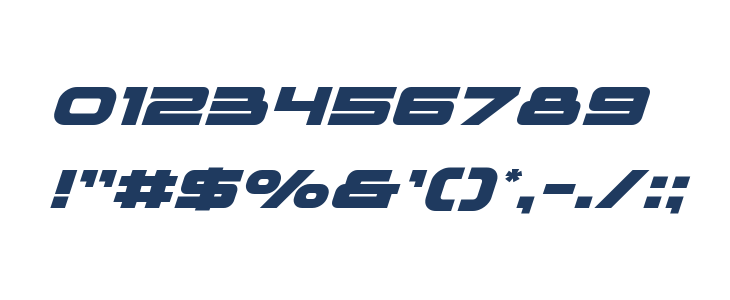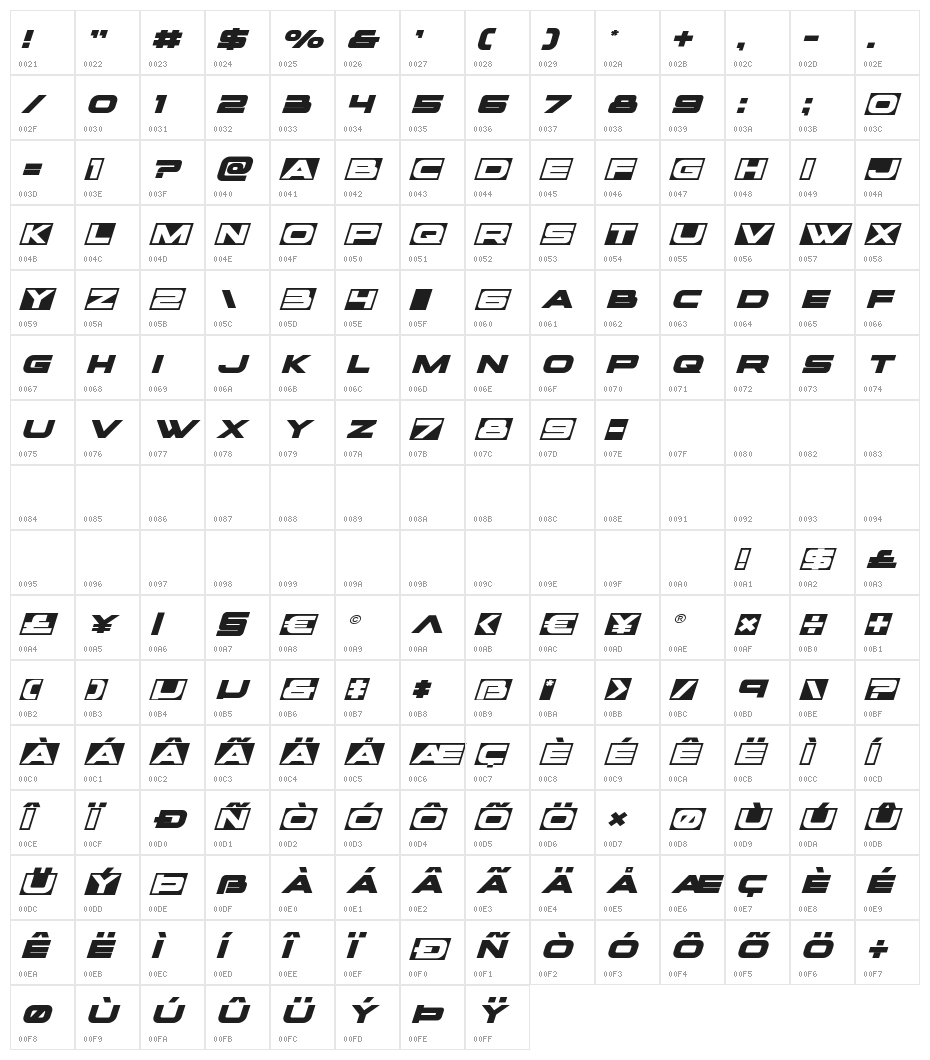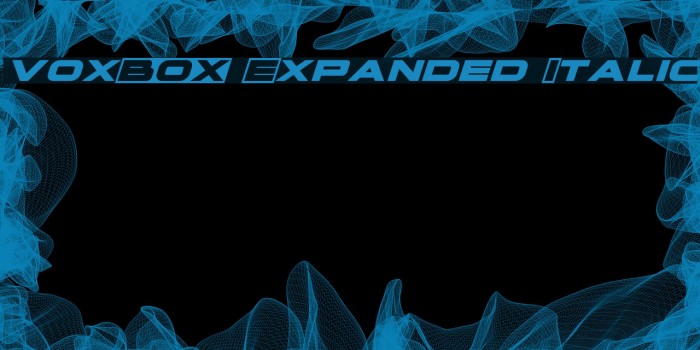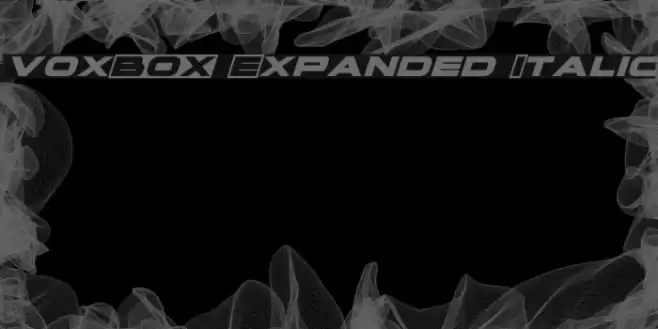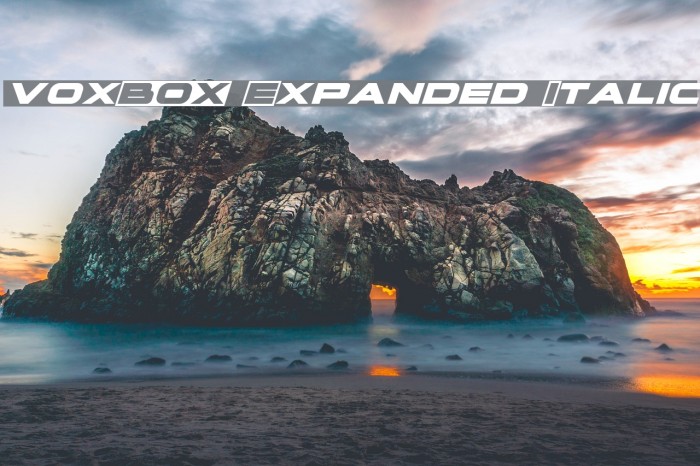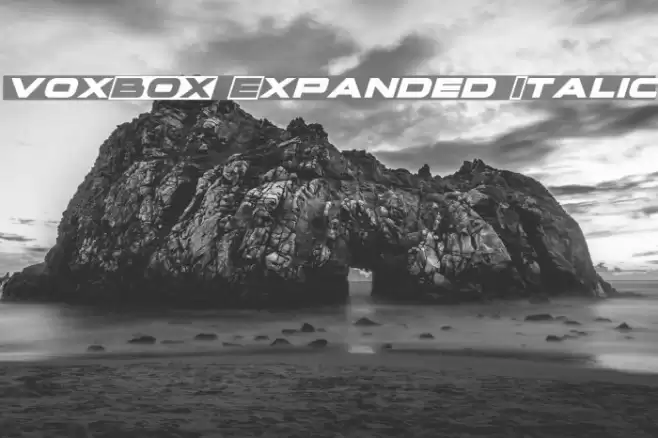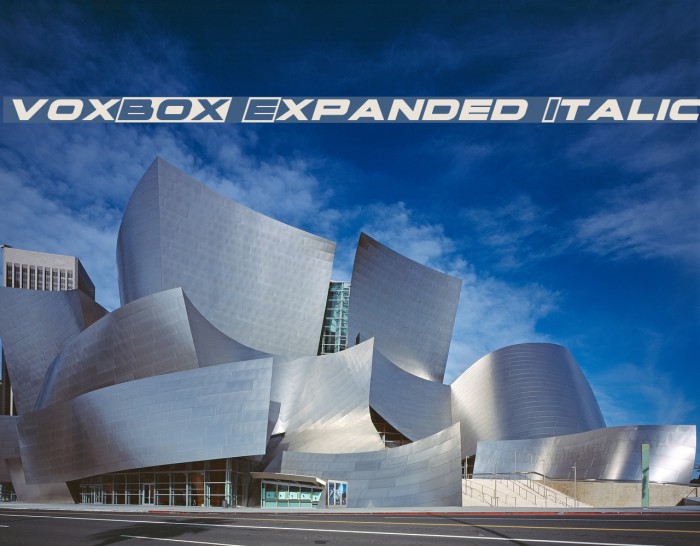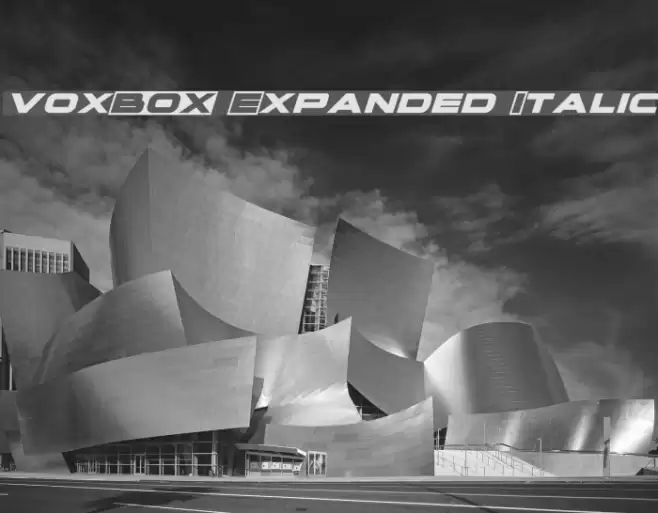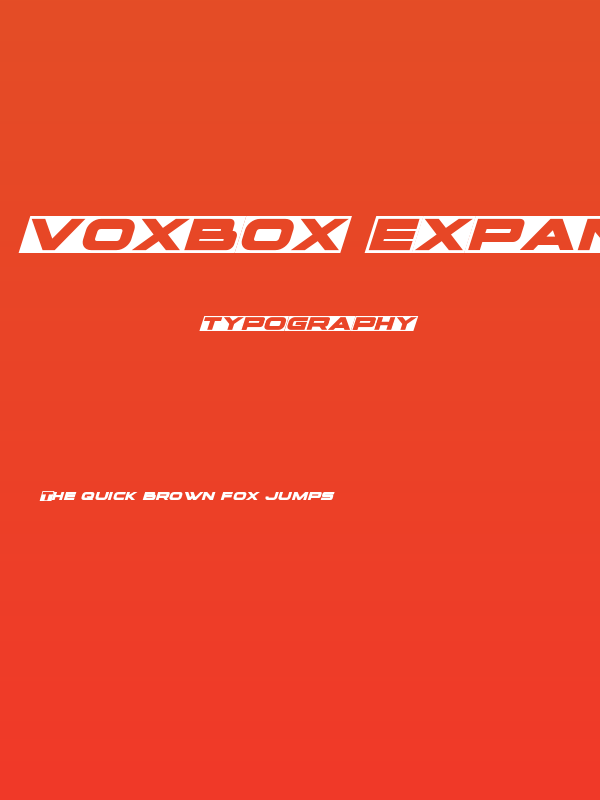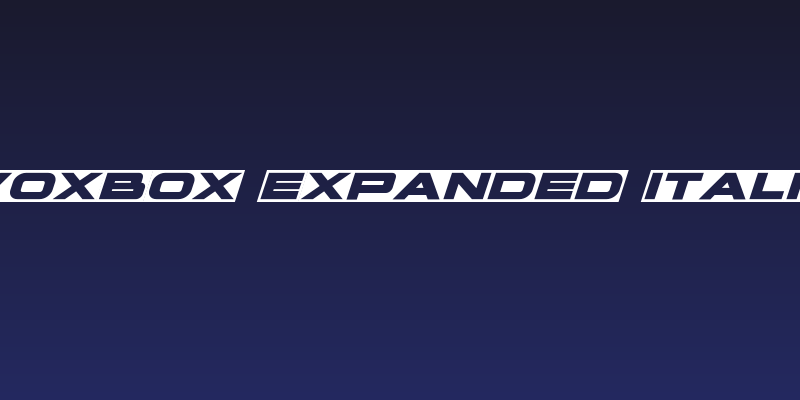
voxBOX Expanded Italic Font
voxBOX Expanded Italic Description
This font features a bold and dynamic style with an italicized slant, giving it a sense of motion and energy. The characters are expanded, providing a wide and impactful presence. The design includes sharp angles and clean lines, contributing to a modern and futuristic appearance. The uppercase letters are particularly striking, with a strong geometric influence. The numerals and special characters maintain the same bold and expansive style, ensuring consistency across all elements. This font is ideal for projects that require a strong visual impact and a contemporary feel.
| Proposed Projects | Ideal for sports branding, automotive designs, tech-related projects, and dynamic advertising campaigns. |